C drop mark
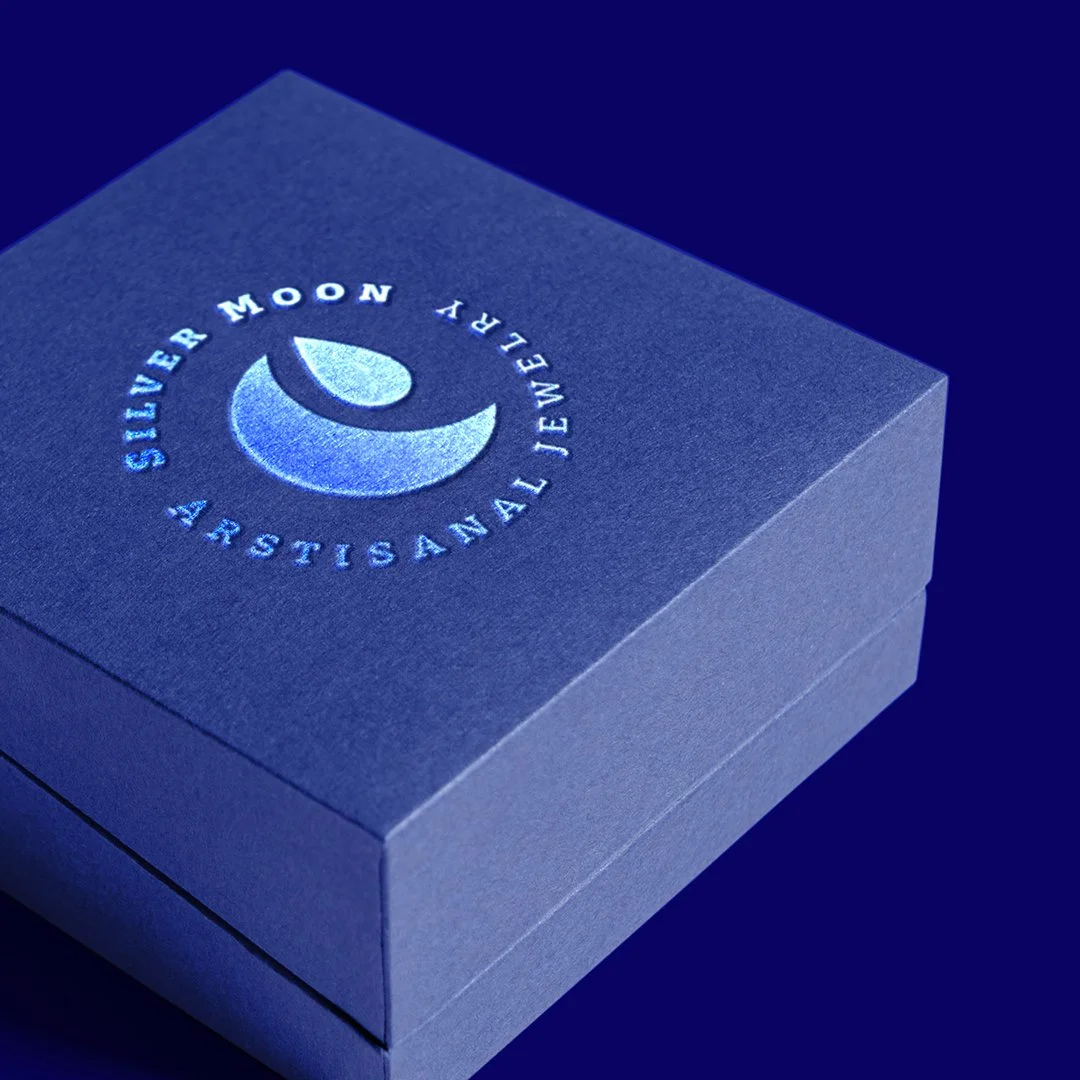
C drop mark
A crescent moon shaped letter C with a serif modeled into a droplet. Has a contemporary, yet timeless feel. Could fit high end products such as watches, jewellery, apparel, cosmetics, food & beverages, etc